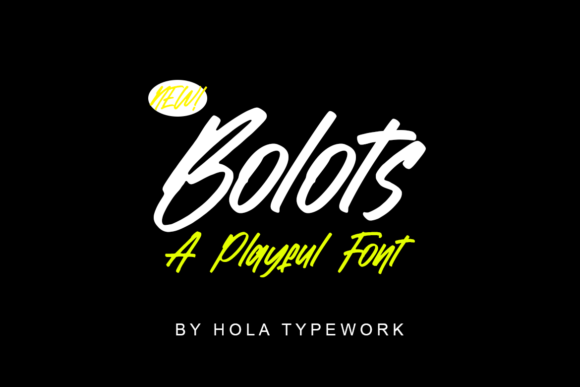
The Ultimate Guide to Bolots Font: A Playful and Versatile Handwritten Font
I’ll never forget the time I was working on a t-shirt design project for a client who wanted a fun, casual look. I had a clear idea of what I wanted to create, but I was struggling to find the perfect font. That’s when I stumbled upon Bolots Font, a playful and brushed handwritten font that instantly caught my attention. In this article, I’ll share my experience with Bolots Font, its features, and how to make the most of it in your designs.
An Honest Review of Bolots Font
So, what do I love about Bolots Font? 🤔 Here are a few things that make it stand out:
- ✨ Playful and casual vibe: Bolots Font has a unique, hand-brushed feel that’s perfect for creating fun and relaxed designs.
- ✅ Highly versatile: This font can be used for a wide range of projects, from t-shirt designs and quotes to mugs, tote bags, cards, and banners.
- 🎨 Great for creative projects: Bolots Font is ideal for crafty projects, social media graphics, and any design that requires a personal touch.
While Bolots Font is an excellent choice, it’s not without its quirks. Here are a few things to keep in mind:
- ⚠️ Limited use in formal designs: Due to its playful nature, Bolots Font may not be the best choice for formal or professional designs.
- 🤔 Some letters may require adjustment: As with any handwritten font, some letters may require manual adjustment to ensure proper spacing and alignment.
The Backstory of Bolots Font
Bolots Font was created with the intention of providing a unique, handwritten font that’s perfect for creative projects. The designer aimed to create a font that’s both playful and versatile, making it suitable for a wide range of designs.
| What is Bolots Font best used for? | Bolots Font is great for t-shirt designs, quotes, mugs, tote bags, cards, banners, social media, and any crafty project. |
| Is Bolots Font suitable for formal designs? | No, Bolots Font is a playful and casual font that’s not suitable for formal designs. |